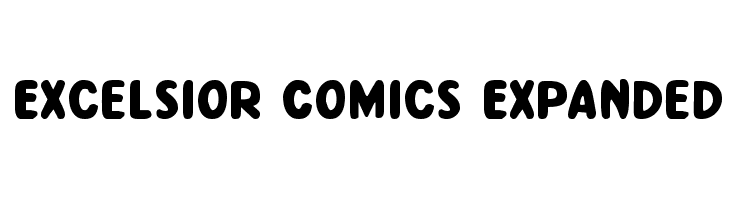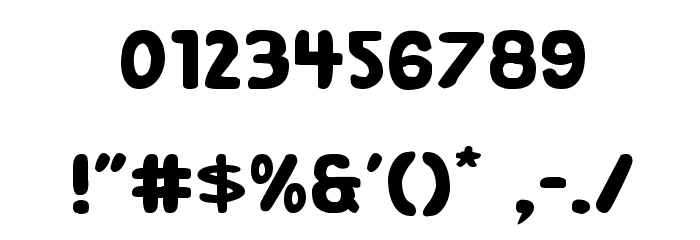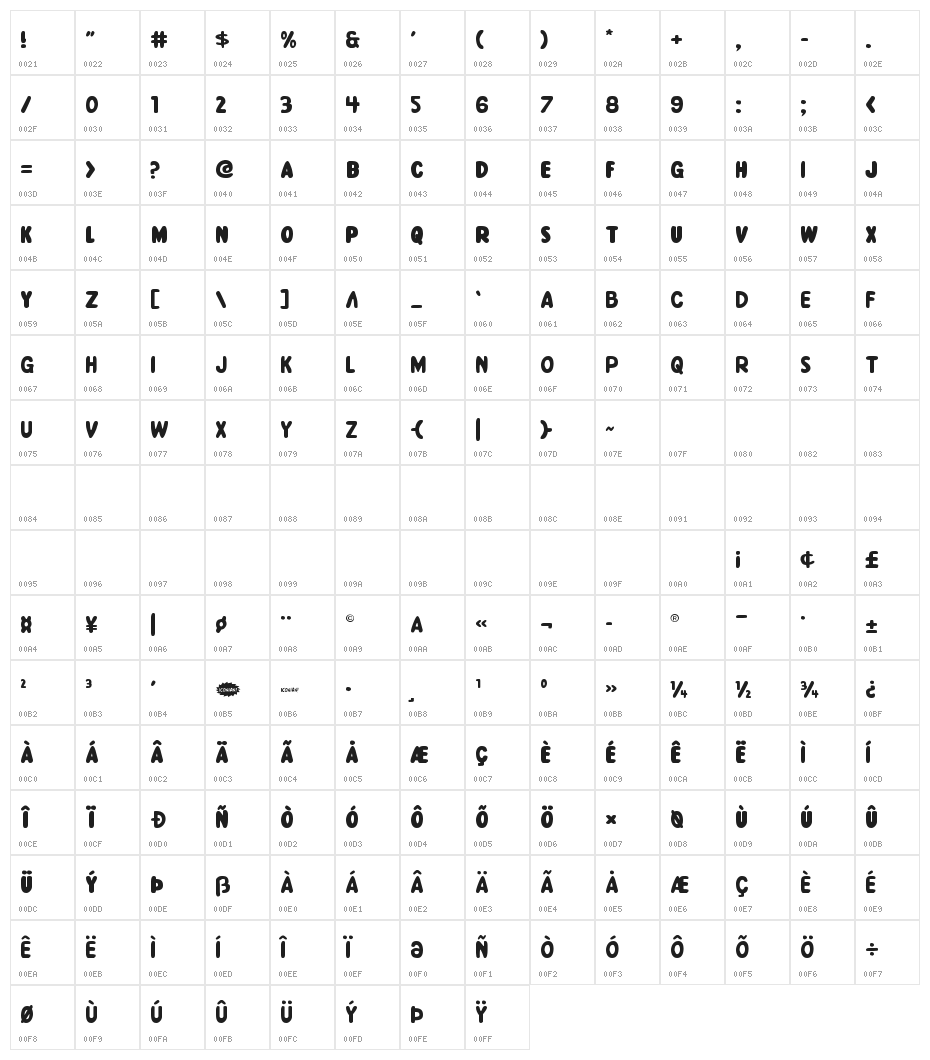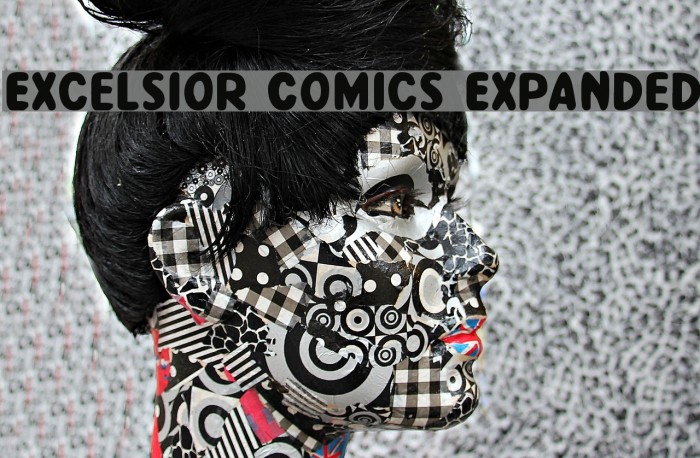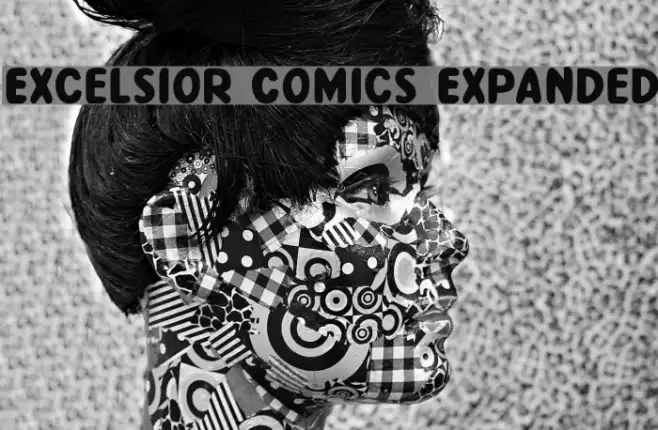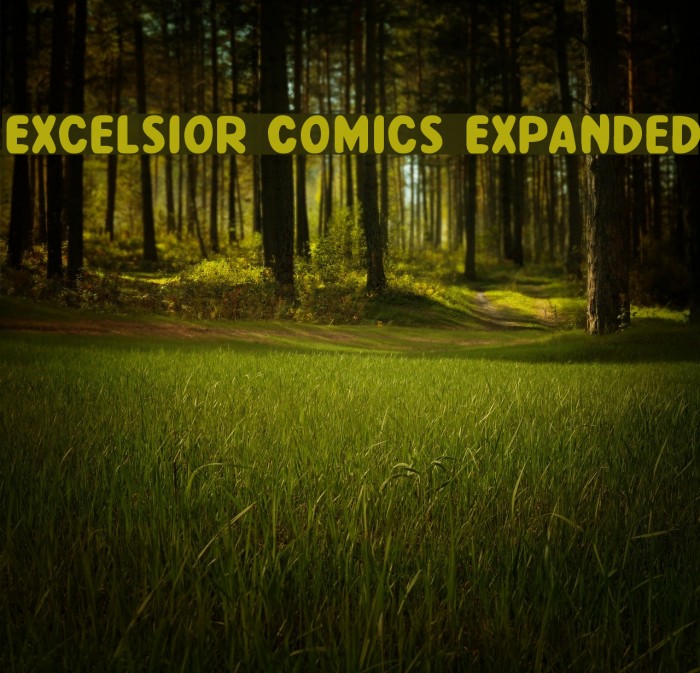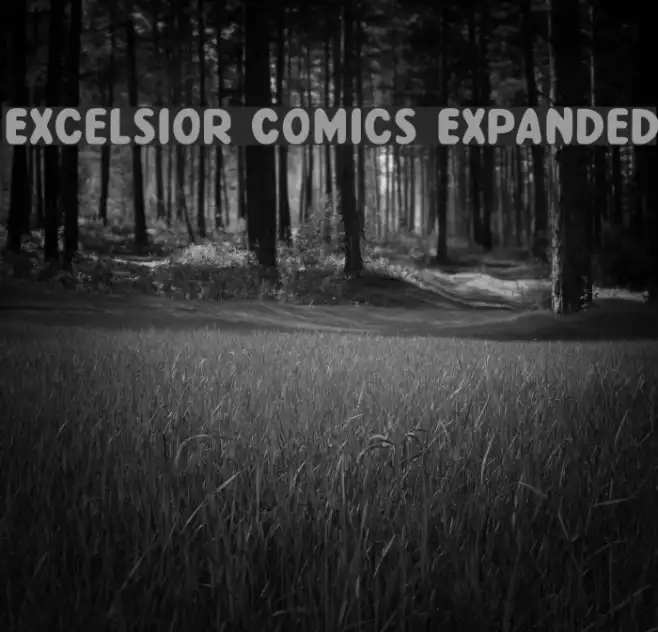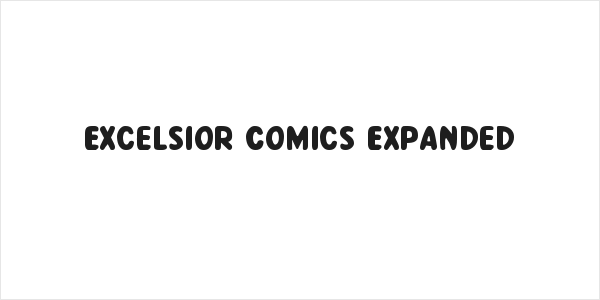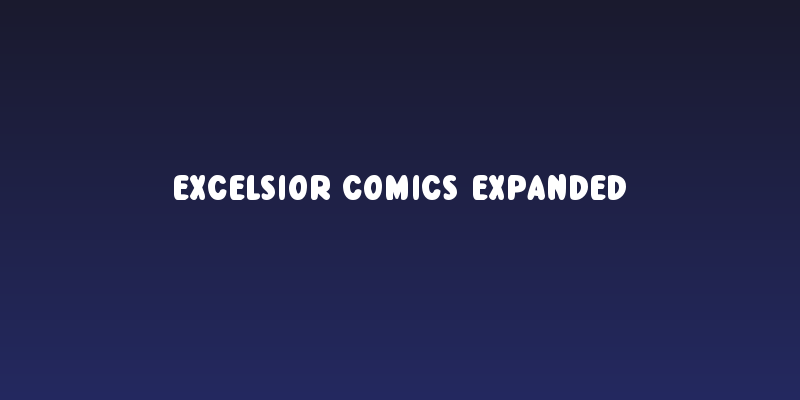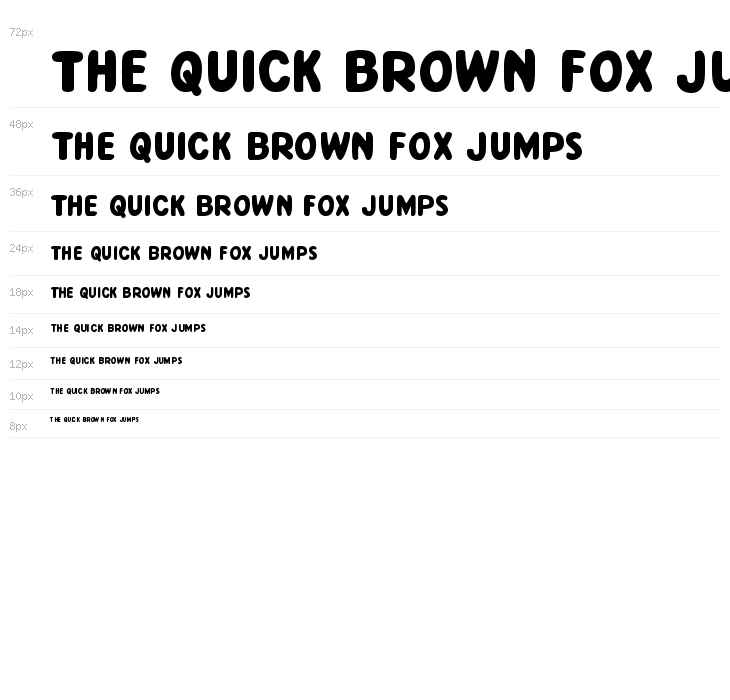
Excelsior Comics Expanded Font
Excelsior Comics Expanded Description
This font features a playful and bold design, characterized by its rounded and thick letterforms. The characters exhibit a consistent stroke width, contributing to a uniform and cohesive appearance. The font's style is reminiscent of comic book lettering, with a fun and approachable aesthetic. It includes both uppercase and lowercase letters, numbers, and a variety of special characters, making it versatile for different design needs. The overall look is friendly and engaging, suitable for projects that require a touch of whimsy and creativity.
| Overall Style | Playful, Comic |
| Proposed Projects | Ideal for comic books, children's books, playful branding, posters, and creative advertisements. |